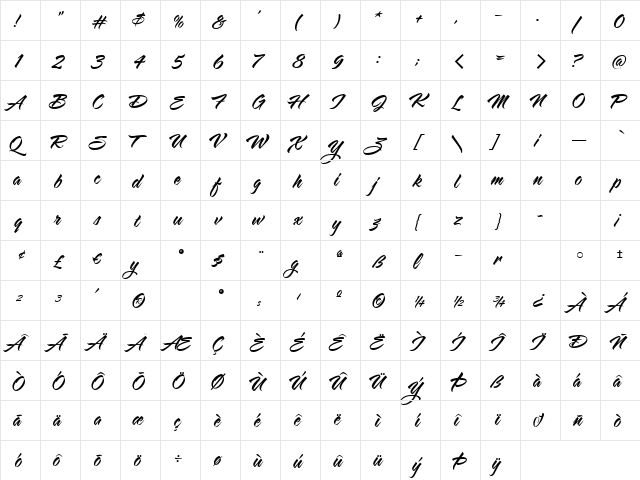
SARAH SCRIPT Regular
Design Context for SARAH SCRIPT Typeface
SARAH SCRIPT flows with the natural rhythm of handwritten lettering, making it ideal for designs that call for warmth and personal expression.
Font Pairing: Combine SARAH SCRIPT with a simple geometric sans for maximum contrast — the tension between flowing curves and clean structure is a classic typographic pairing.
Pro Tip: Pair SARAH SCRIPT with a clean sans-serif for supporting text. The contrast between fluid script and geometric structure creates an elegant typographic hierarchy.